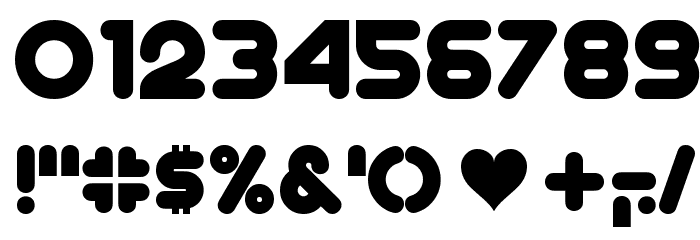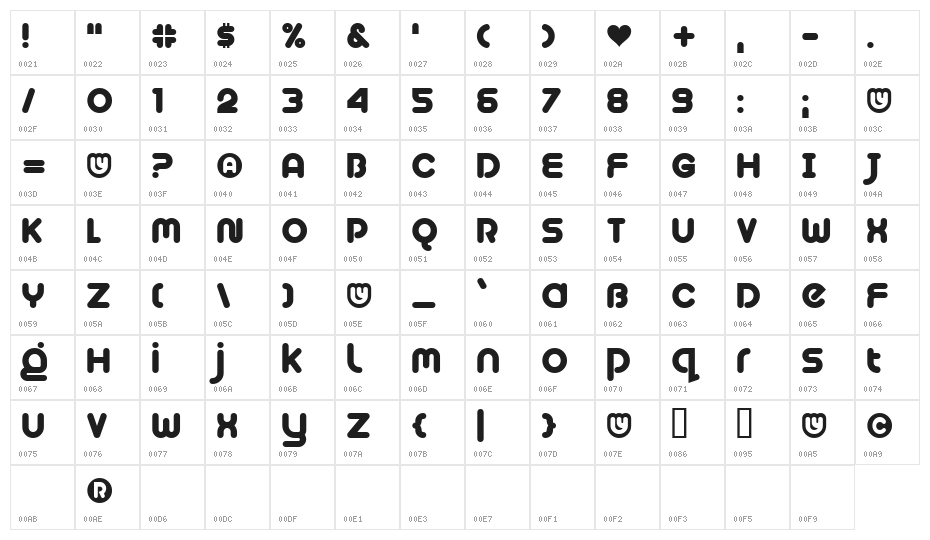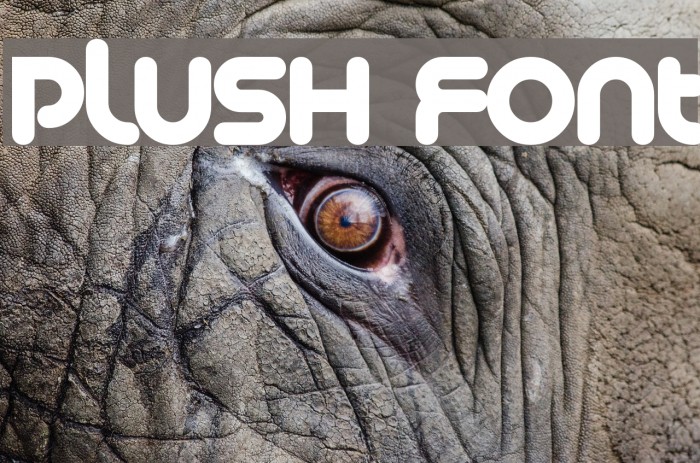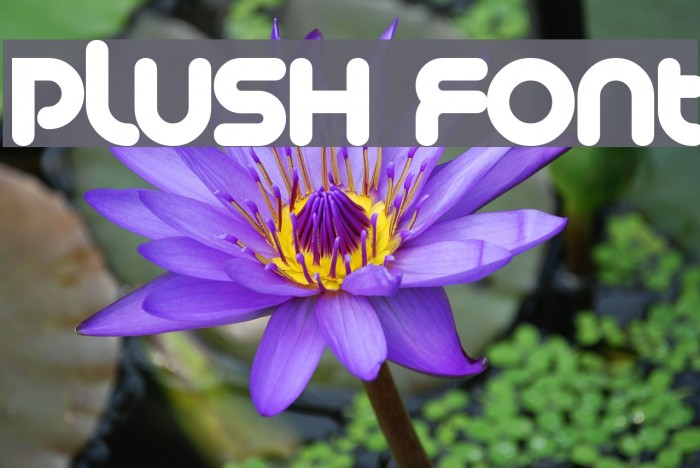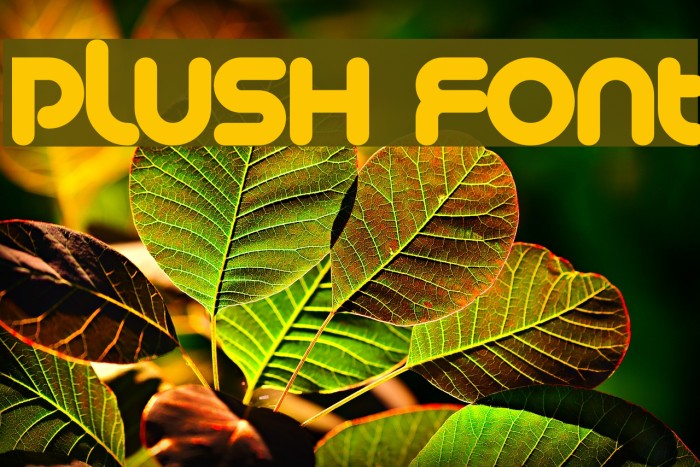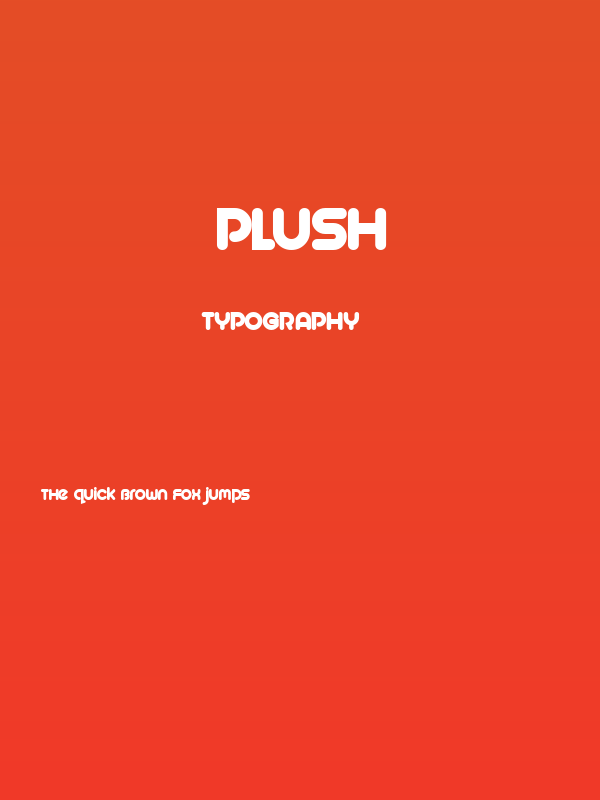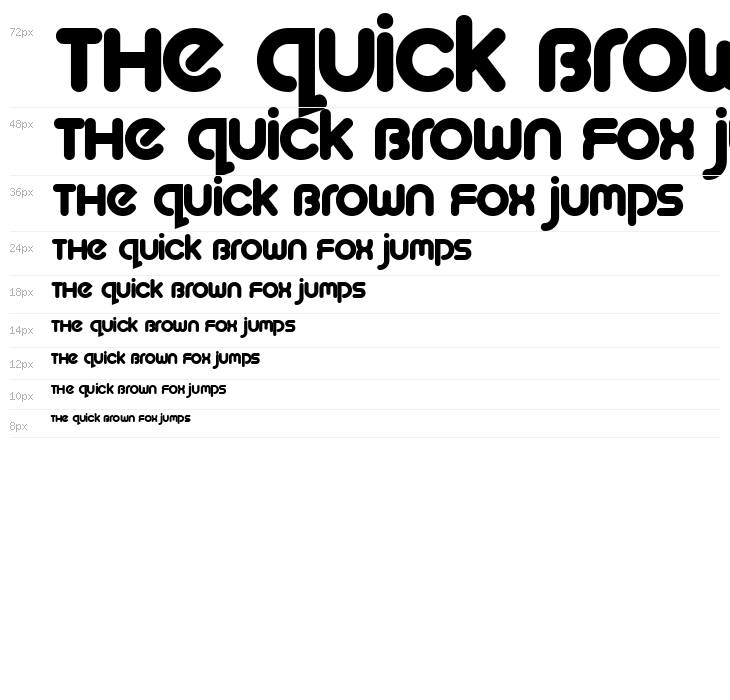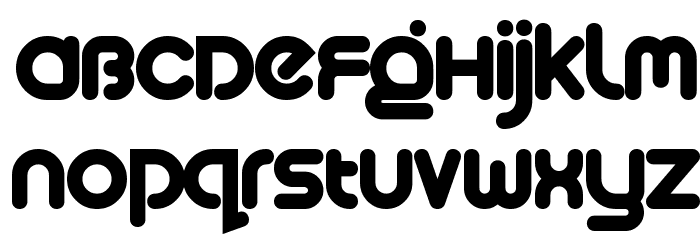
Plush Font
Plush Description
This font features a bold and rounded style with a playful and modern aesthetic. The characters are thick and have a consistent stroke width, creating a uniform appearance. The rounded edges and smooth curves give it a friendly and approachable feel. The uppercase and lowercase letters maintain a cohesive look, while the numbers and special characters are designed to match the overall style. The font's distinctiveness lies in its geometric shapes and the slight variations in character forms, adding a unique touch to each letter.
| Proposed Projects | Ideal for branding, children's books, playful posters, and modern advertising campaigns. |